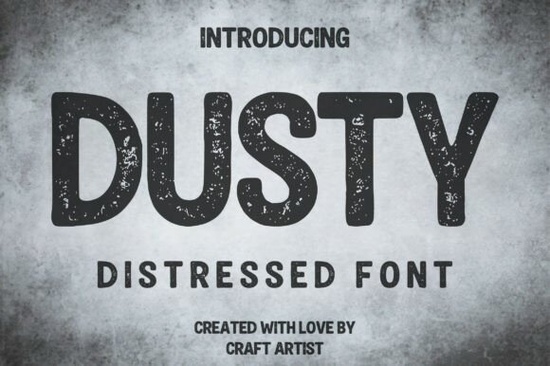
If you're looking for a font that can add a rugged, vintage feel to your designs, the Dusty Font might just be what you need. This powerful, all-caps display typeface is designed with a heavy, distressed texture that gives it an authentic, weathered look. Whether you're working on t-shirt designs, branding for craft beer, or creating album art, Dusty Font can help you achieve that handmade, industrial aesthetic.
What Makes Dusty Font Stand Out?
Dusty Font is not just another distressed font; it's carefully crafted to balance readability and character. The slightly rounded, block-like structure of the letters ensures that even with the intentional noise and speckling, the text remains clear and legible. This makes it perfect for titles and headlines where you want to make a strong visual impact without sacrificing clarity.
Where Can You Use Dusty Font?
The versatility of Dusty Font makes it suitable for a wide range of projects. Here are some ideas:
- Vintage T-Shirt Designs: Add a touch of nostalgia and authenticity to your apparel with this rugged, distressed font.
- Branding for Craft Beer or Coffee: Create a unique, handcrafted look for your brand that stands out in a crowded market.
- Grunge Music Album Art: Perfect for giving your album covers a raw, edgy feel that resonates with fans of alternative music.
- Rustic Signage: Design signs that look like they've been around for years, adding a sense of history and character to any space.
- Custom Graphics for Outdoor and Adventure Apparel: Ideal for creating logos and graphics that capture the spirit of the outdoors.
How Does Dusty Font Compare to Other Distressed Fonts?
While there are many distressed fonts available, Dusty Font stands out with its unique combination of boldness and readability. For example, if you're looking for a more funky, grunge style, you might consider Funky Grunge Font. If you prefer a more elegant, vintage look, Barbie Vintage Font could be a great choice. For something more playful and whimsical, Oopsy Doodle Font is an excellent option. And if you need a more crafty, floral design, Crafty Bloom Font might be right for you. Each of these fonts has its own unique character, but Dusty Font is particularly well-suited for projects that require a strong, rugged, and aged appearance.
Why Choose Dusty Font for Your Next Project?
Choosing the right font can make a significant difference in the overall feel and impact of your design. Dusty Font is a fantastic choice when you want to create a design that feels genuine and handcrafted. Its heavy, integrated distressed texture adds a layer of authenticity that can't be replicated by clean, modern fonts. Whether you're designing for a small business, a personal project, or a client, Dusty Font can help you achieve that perfect blend of ruggedness and readability.
Practical Tips for Using Dusty Font
To get the most out of Dusty Font, here are a few practical tips:
- Experiment with Colors: Try using different color combinations to see how they interact with the distressed texture. Earth tones and muted colors often work well with this font.
- Combine with Clean Fonts: For a balanced look, pair Dusty Font with a clean, sans-serif font for body text. This contrast can make your design more visually appealing.
- Use in Titles and Headlines: Dusty Font is best used for titles and headlines where its bold, all-caps style can make a strong statement.
- Test Readability: Make sure the font size and spacing are appropriate for the medium you're designing for. The distressed texture can sometimes affect readability, so it's important to test it in different contexts.
By following these tips, you can effectively use Dusty Font to add a unique, vintage touch to your designs. Whether you're a designer, crafter, or print-on-demand seller, Dusty Font is a versatile tool that can help you create compelling, authentic-looking projects.